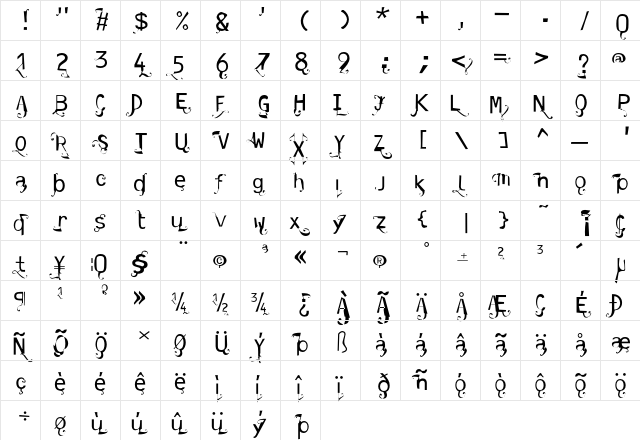
Dyslexia Regular
Design Context for Dyslexia Typeface
Dyslexia is a composed and adaptable typeface that performs quietly and consistently across a wide range of design contexts.